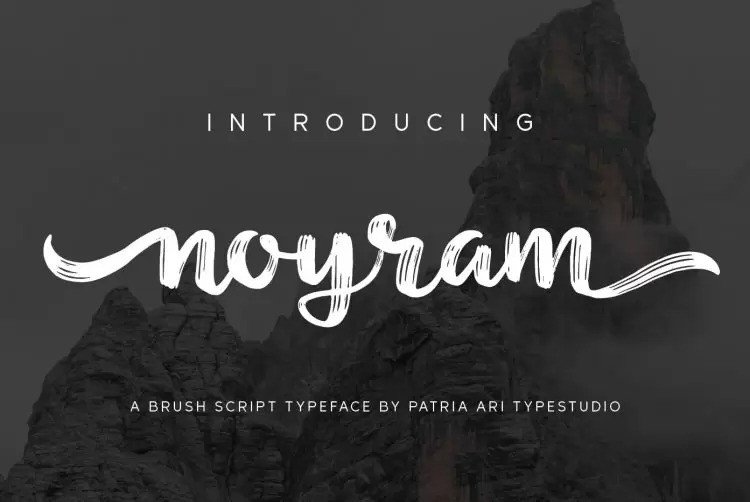
Noyram Font
Noyram Script Font is a realistic hand brushed font manufactured by Patria Ari Typestudio, with natural authentic brush, and also provided some alternate, ligatures and Swashes. Brand new stylish textured fonts and Make it easy for made logotype Hand lettering Style. This font is perfect for branding projects, logo, social media posts, advertisements, product packaging, product designs, label, and any projects that you work on.